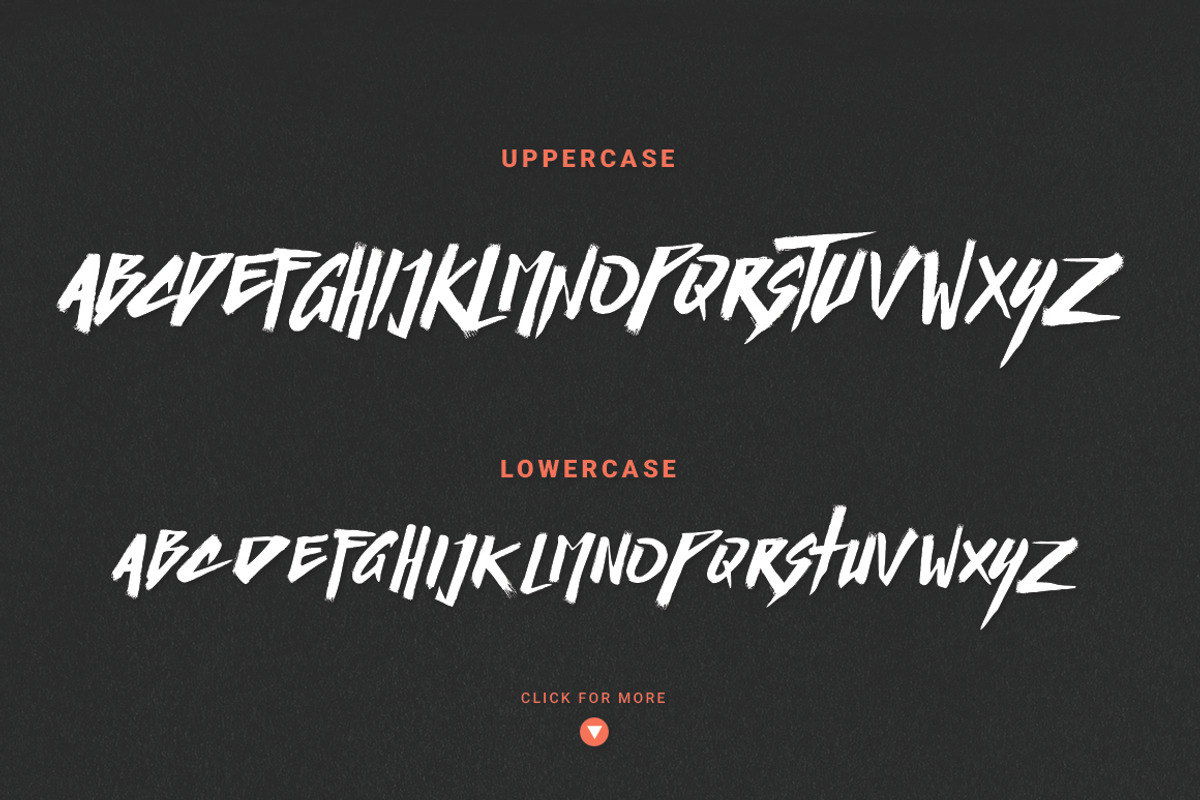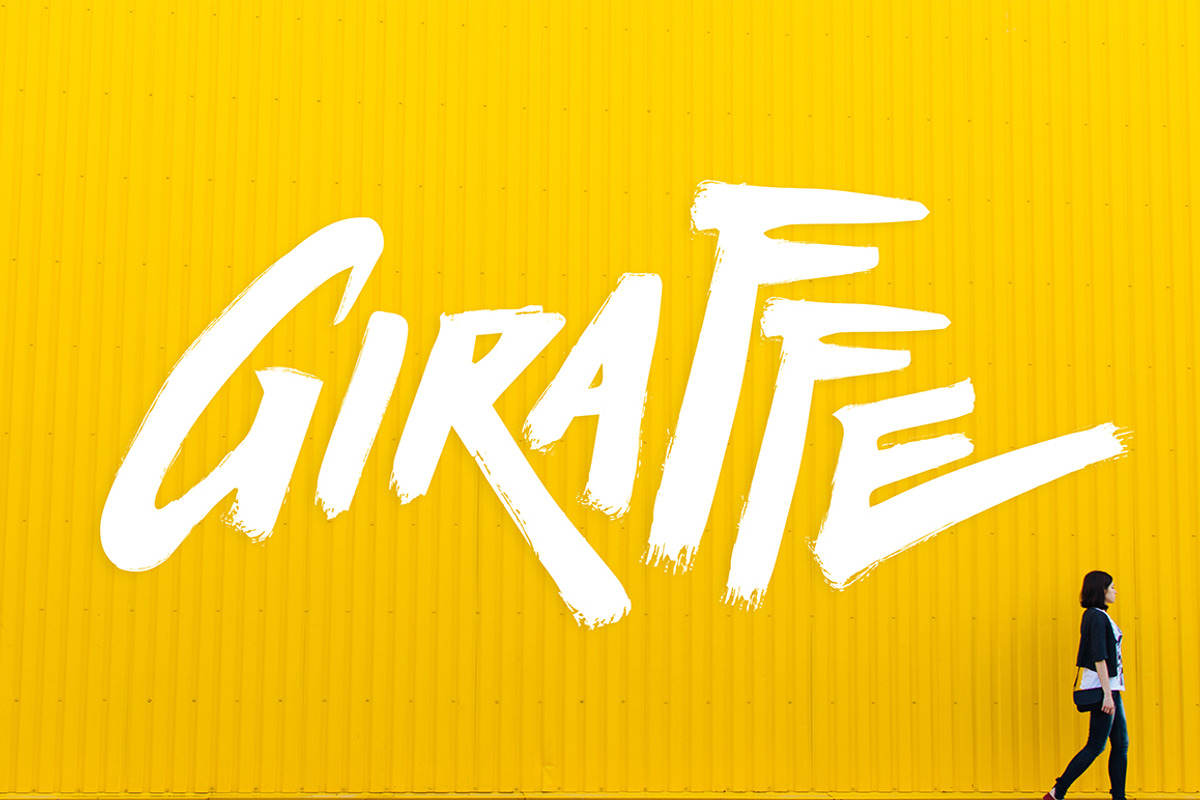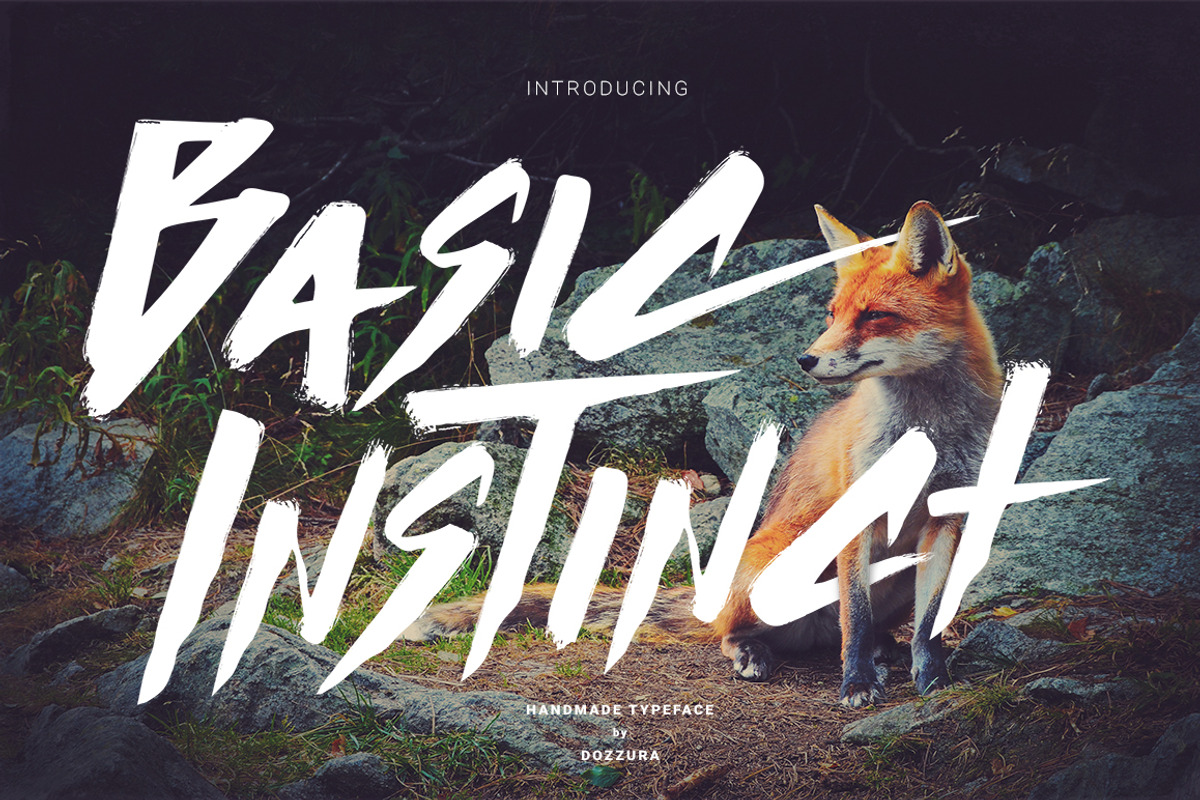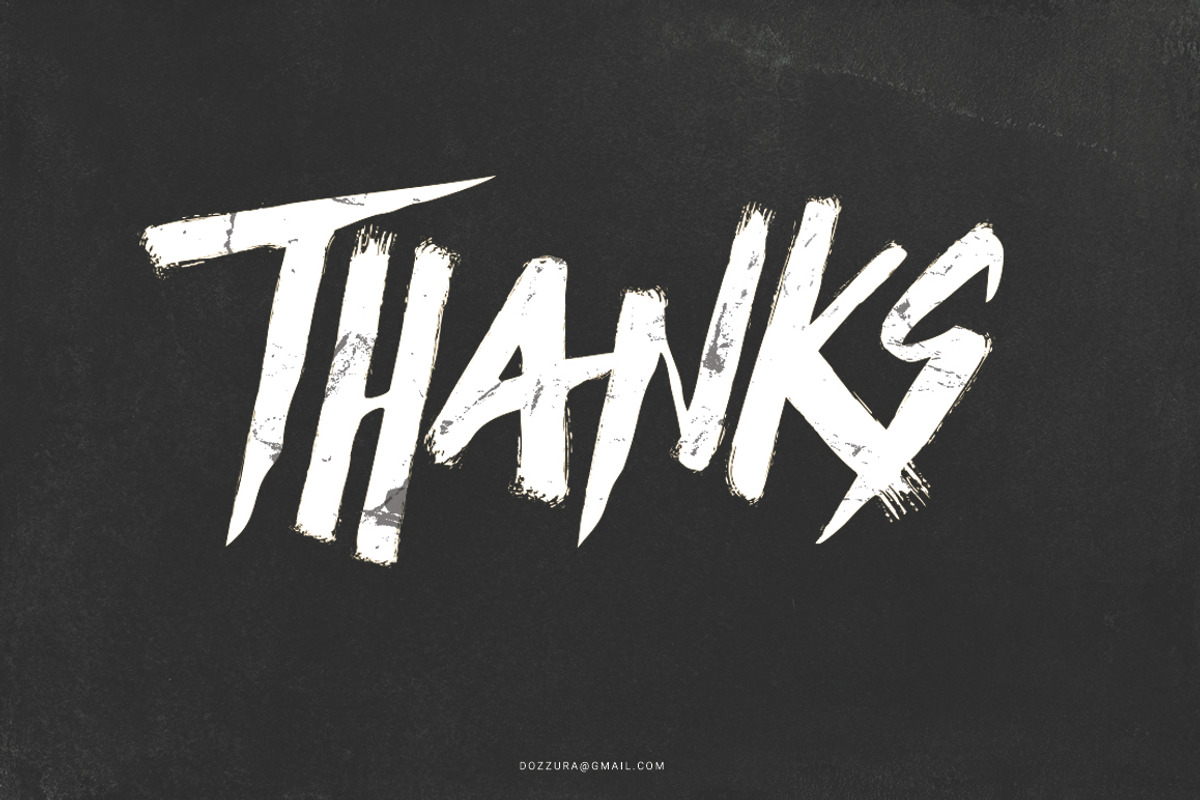
Basic Instinct Typeface
Basic Instinct Typeface by DOZZURA is a font selected for branding, posters, packaging, typography.
Why Basic Instinct Typeface is worth a look
Basic Instinct Typeface by DOZZURA fits naturally into Branding, posters, packaging, typography.